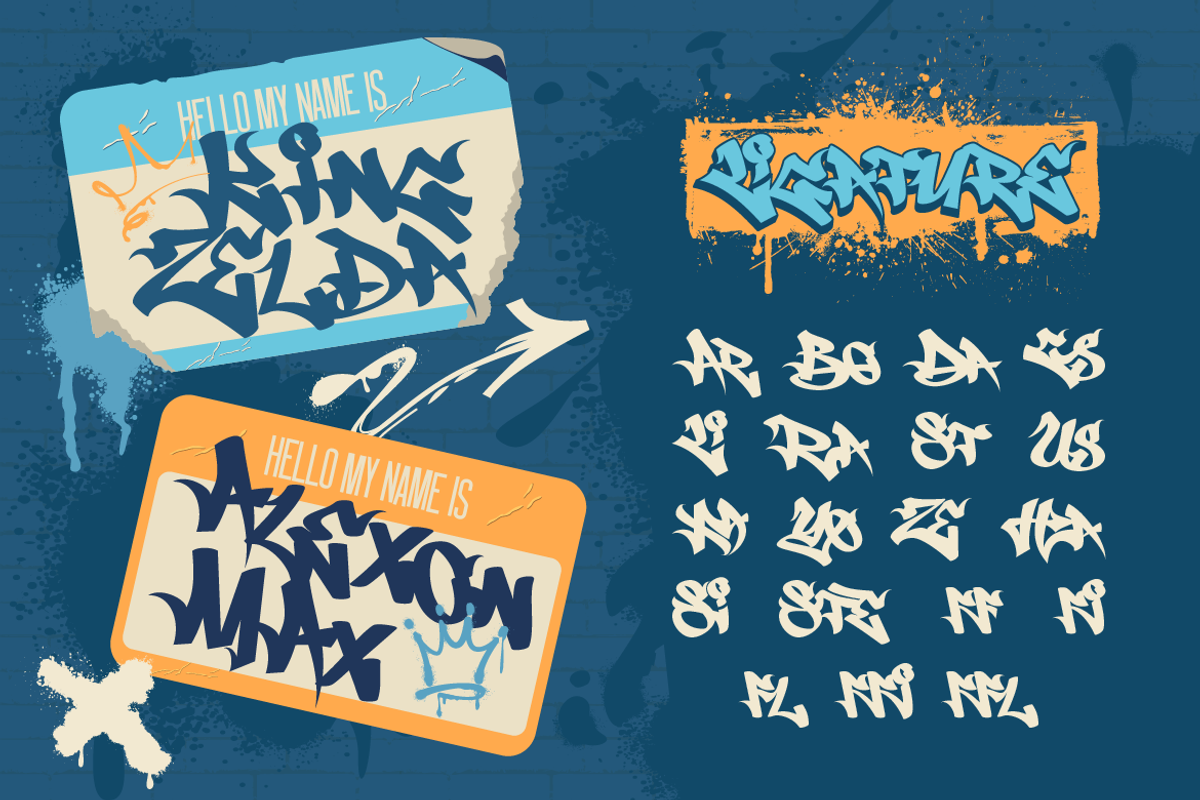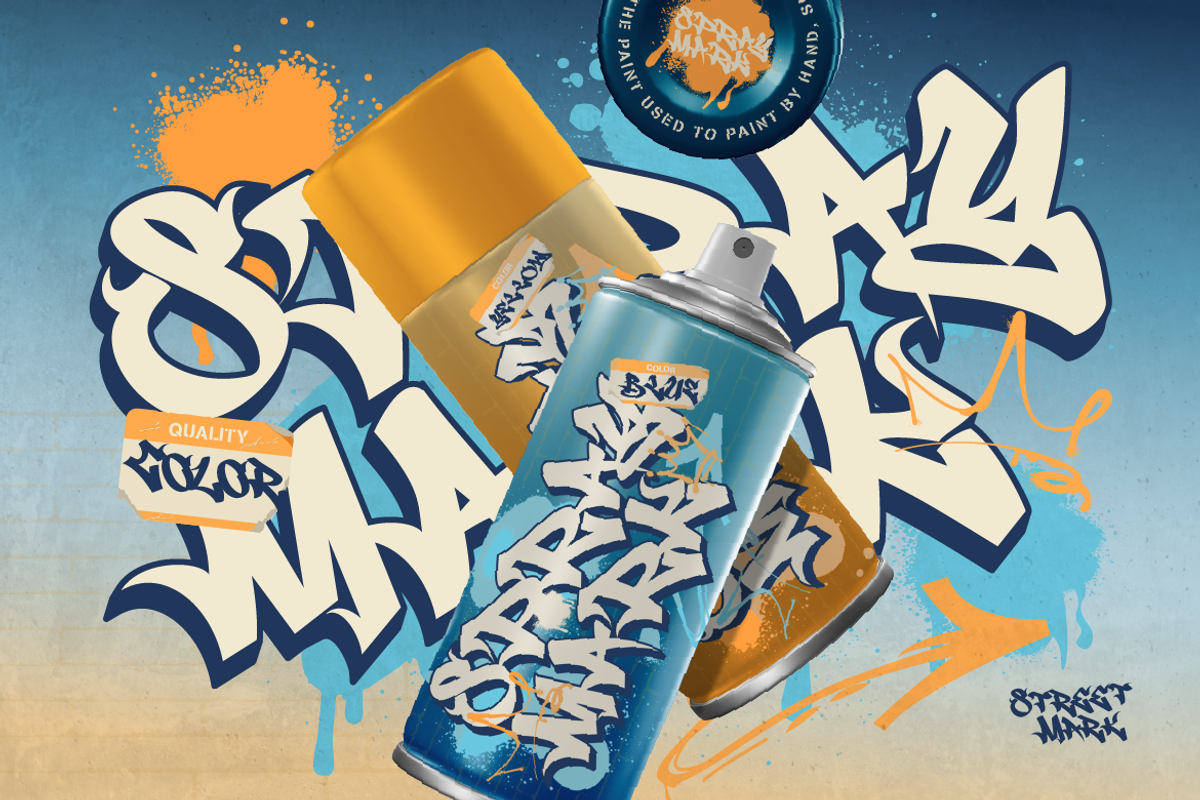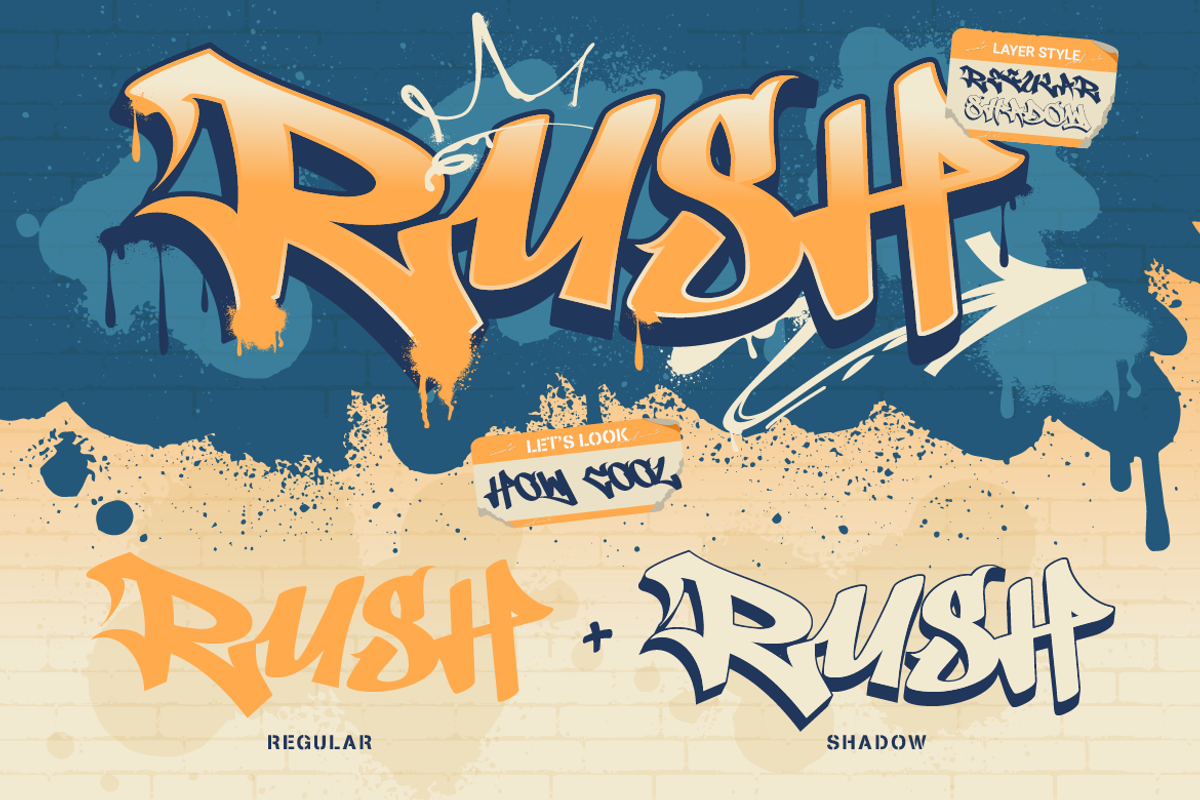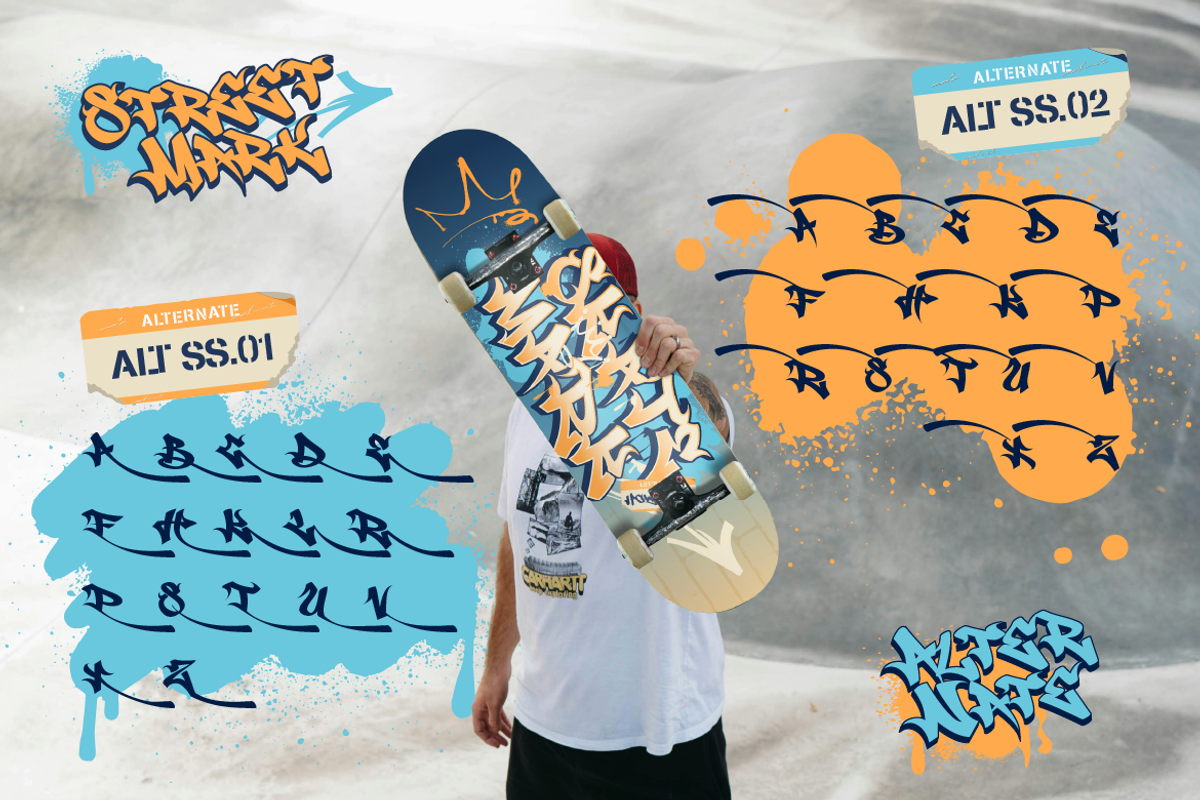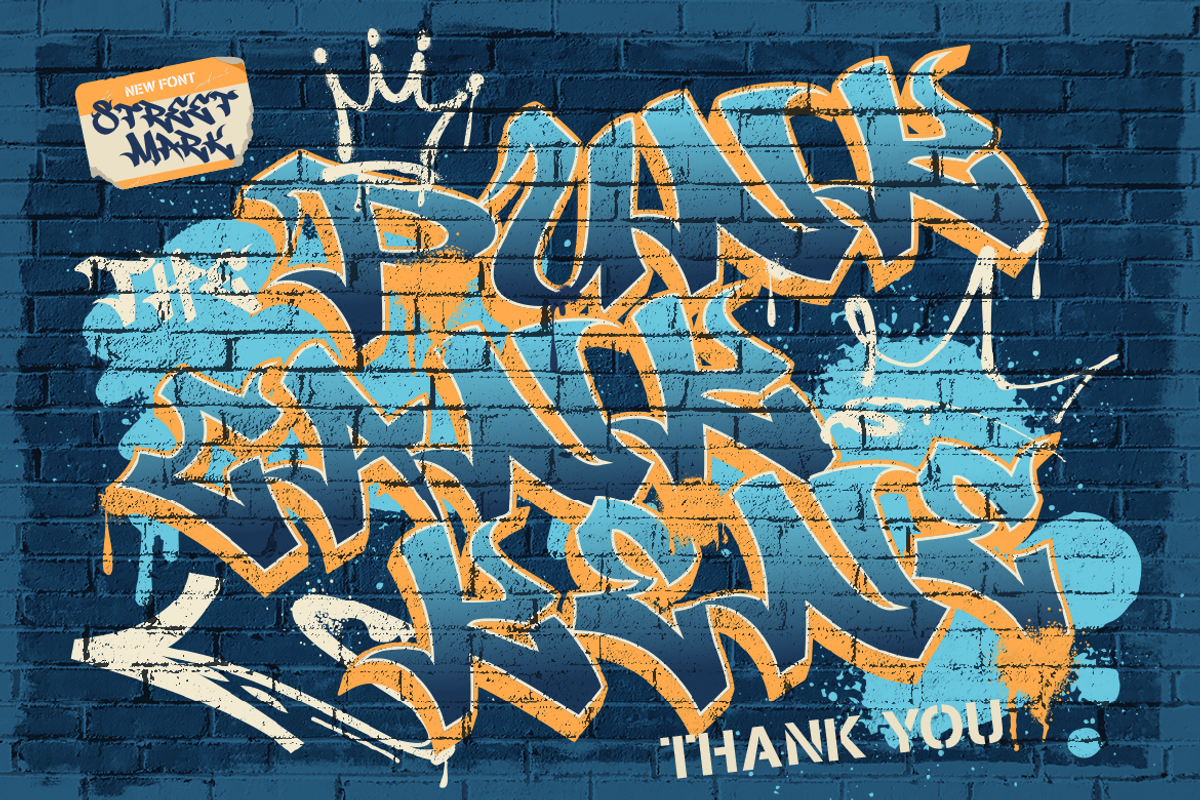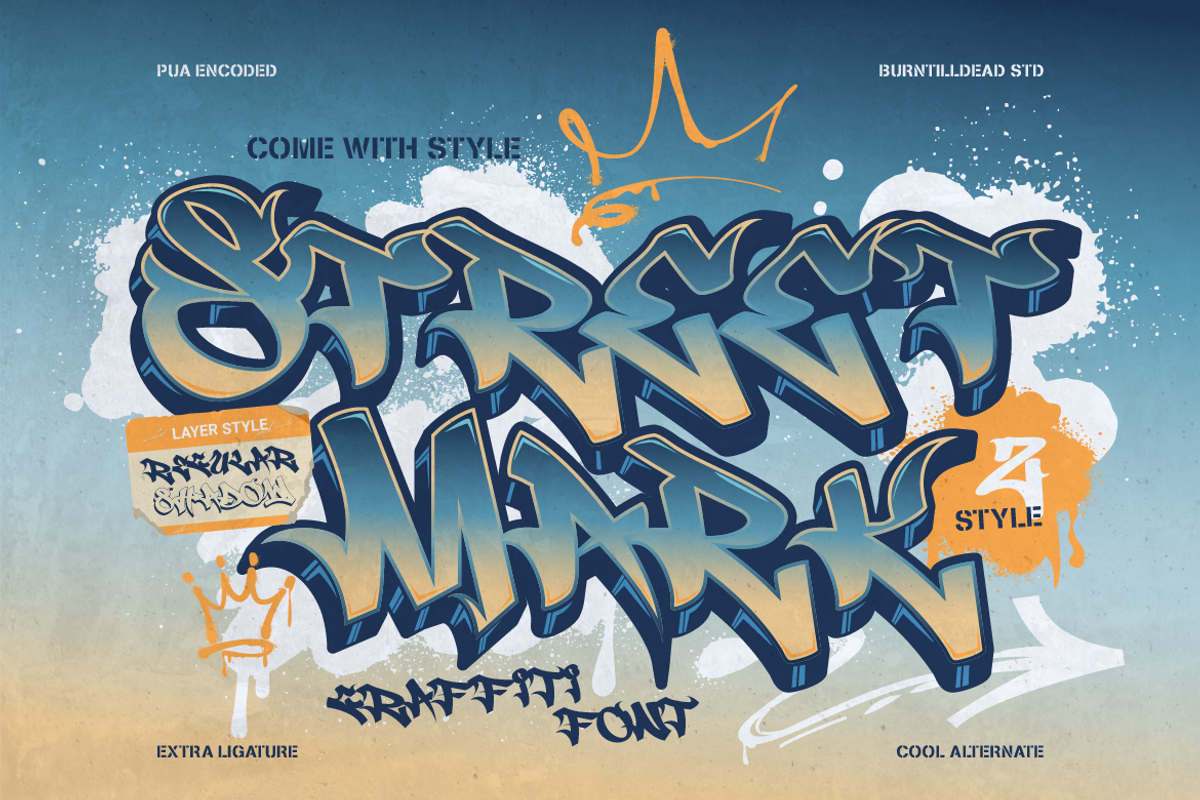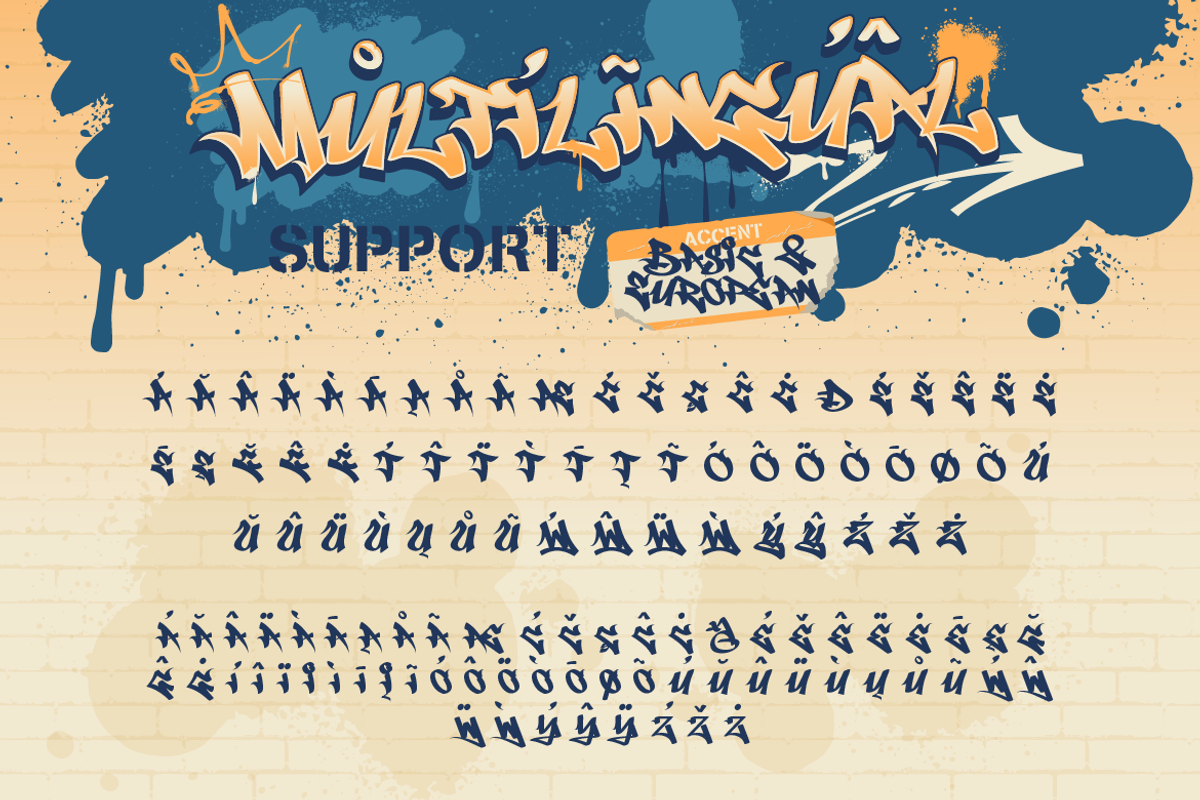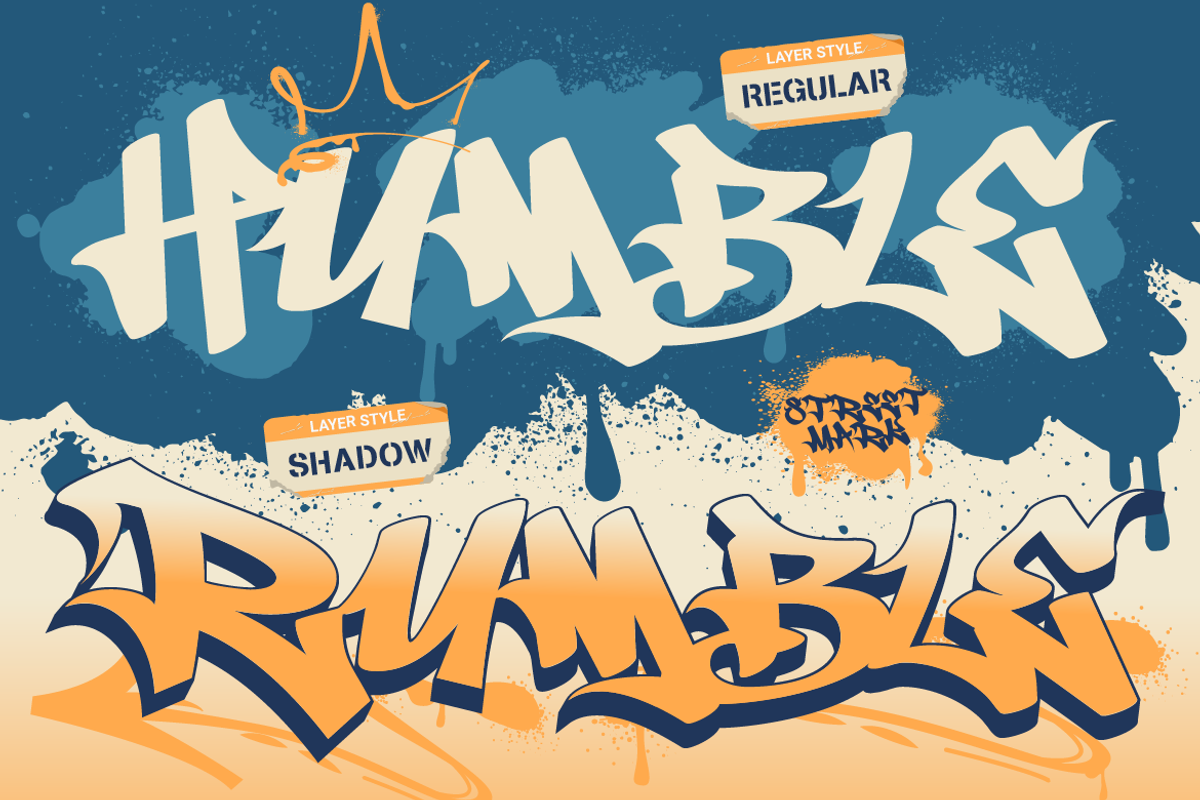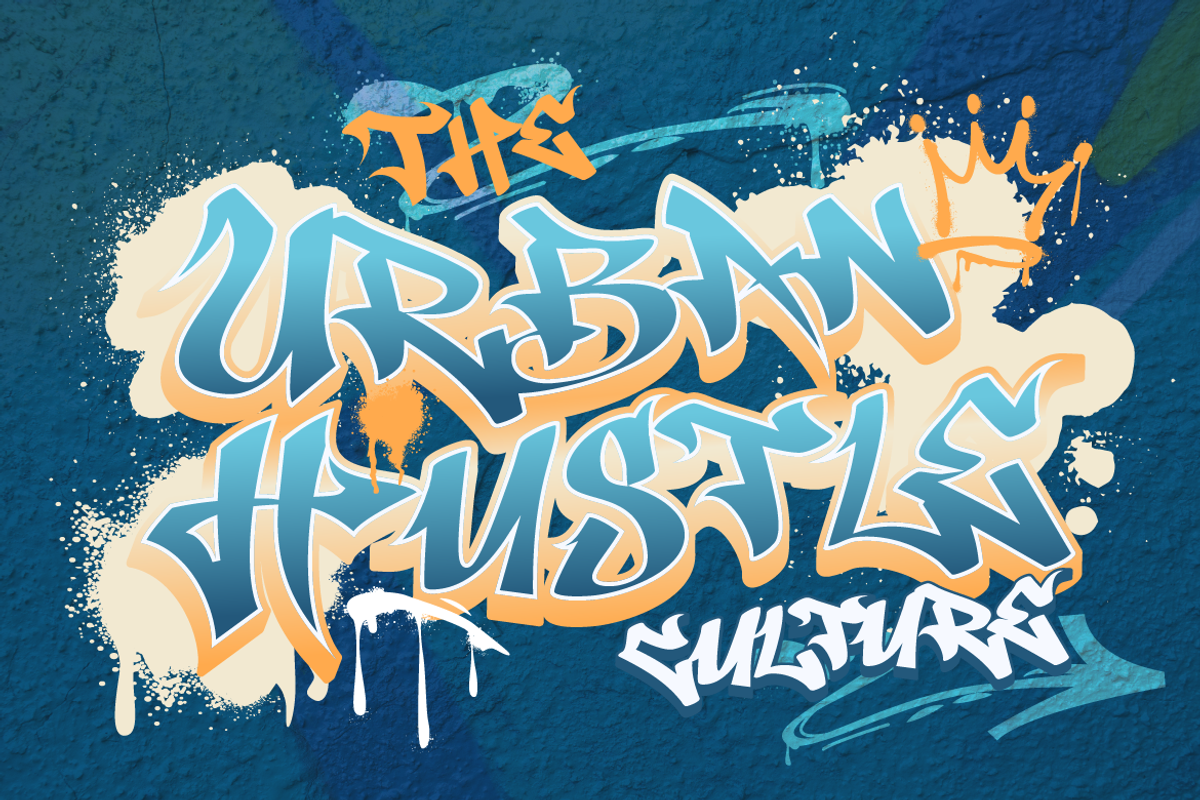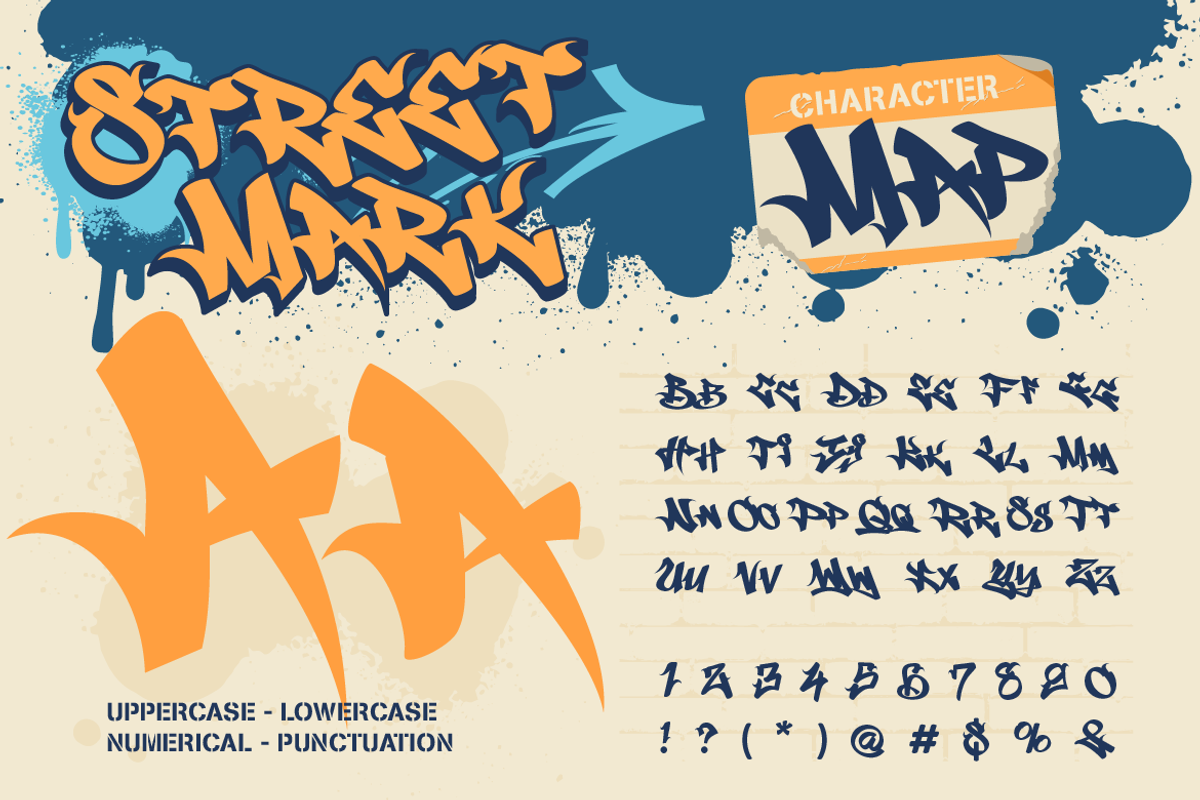
Streetmark
Introducing Streetmark, a graffiti font inspired by street vibes and dynamic energy. Perfect for anyone looking to add a splash of urban flair, this font comes with two styles: Regular and shadow. Streetmark doesn’t stop there. It’s packed with cool alternates and unique ligatures that let you customize every letter and make your design truly one-of-a-kind. Ideal for branding, streetwear, event poster, and anything that needs edgy graffiti touch. Streetmark has got your back!
- A - Z set (Uppercase & Lowercase)